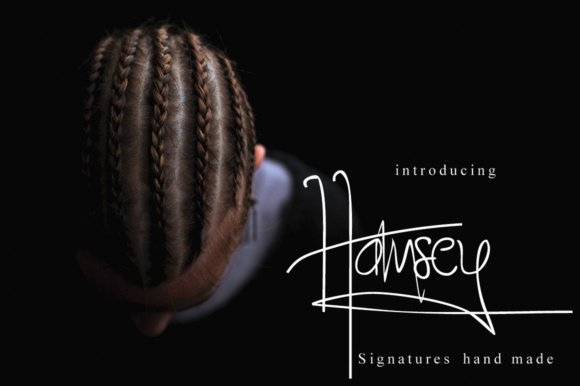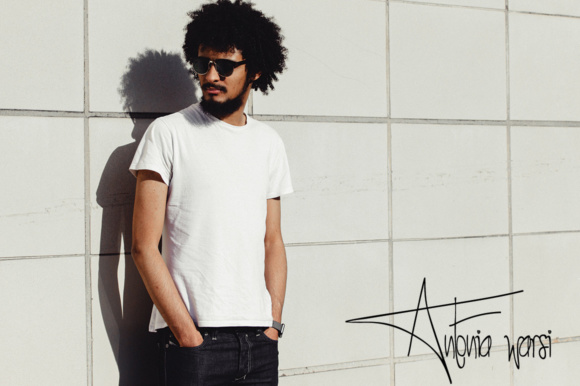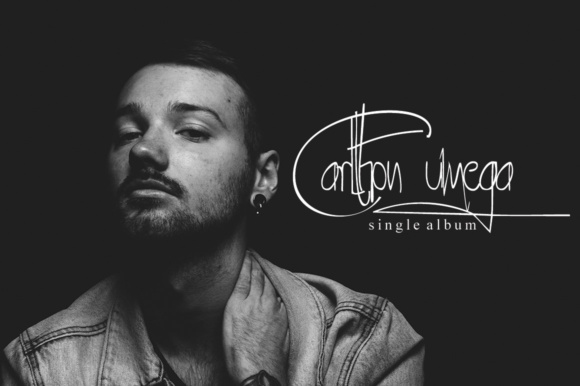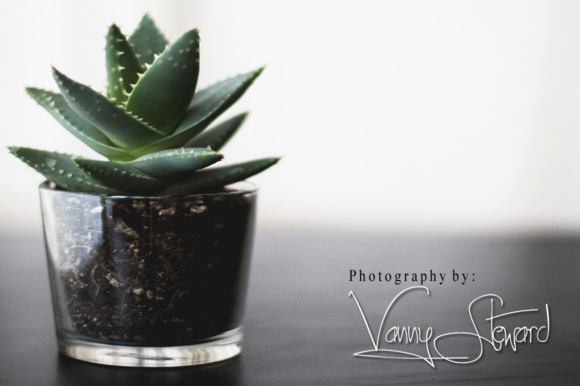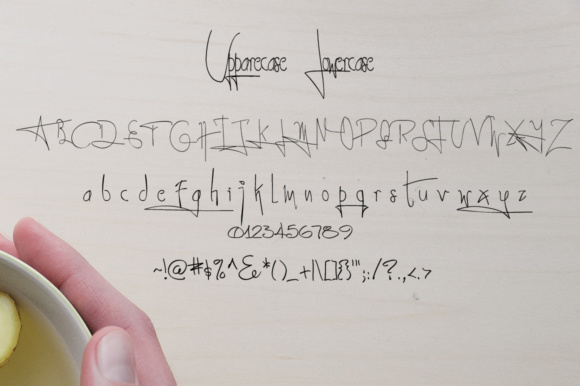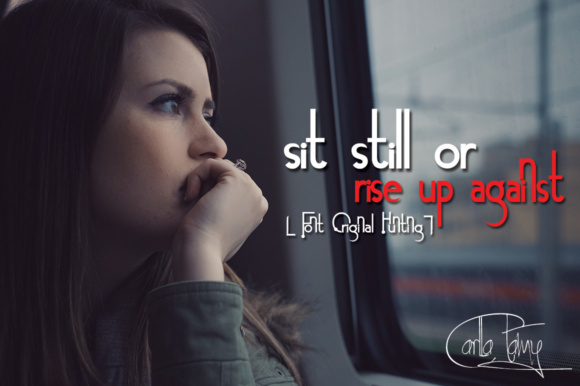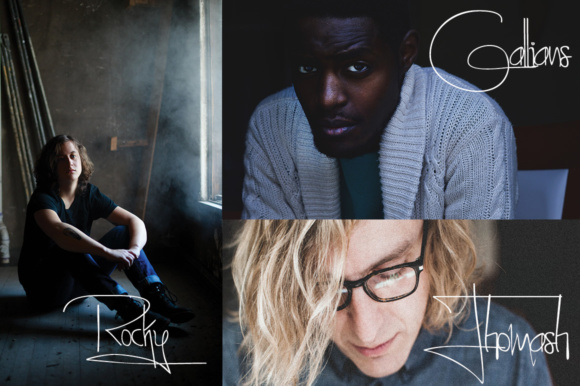
HomeScript FontsHamsey Font Script Fonts Hamsey Font FacebookXPinterestWhatsApp Hamsey Font Poster 2 Hamsey Font Poster 3 Hamsey Font Poster 4 Hamsey Font Poster 5 Hamsey Font Poster 6 Hamsey Font Poster 7 About Hamsey Font Hamsey is a handmade signature typeface. It has a thin, monoline style that works well in many different designs. DOWNLOAD ON CREATIVE FABRICAThis font is sold and delivered by Creative Fabrica. Font Canyon may earn a commission if you buy through this link. People also explored Funny Cat Mandala Monogram Font Love Day Font You Me Font Blastamino Font Caramela Font Albias Smug Mackmoore Font Crandleon Font Devina Font 298 0 TagsHamsey Font Previous articleLa Maison Script FontNext articleFathinya Font LEAVE A REPLY Cancel reply Comment: Please enter your comment! Name:* Please enter your name here Email:* You have entered an incorrect email address! Please enter your email address here Website: Save my name, email, and website in this browser for the next time I comment. Personal Use Free Love Story Personal Use Free Read more about this font Cretino Personal Use Free Read more about this font Darla Personal Use Free Read more about this font Ryujin Attack Personal Use Free Read more about this font BLOG Elegant Wedding Invitation Fonts – Handwritten & Script Fonts Elegant Wedding Invitation Fonts Your wedding day is one of the most important moments of your life, and every detail matters—including your invitation design. Our... Free vs Paid Fonts: Why Investing in Premium Fonts Is Worth It Using Fonts in Digital Marketing: Tips to Strengthen Your Brand Identity Free Fonts Risk: Why Free Fonts Can Be Dangerous for Designers